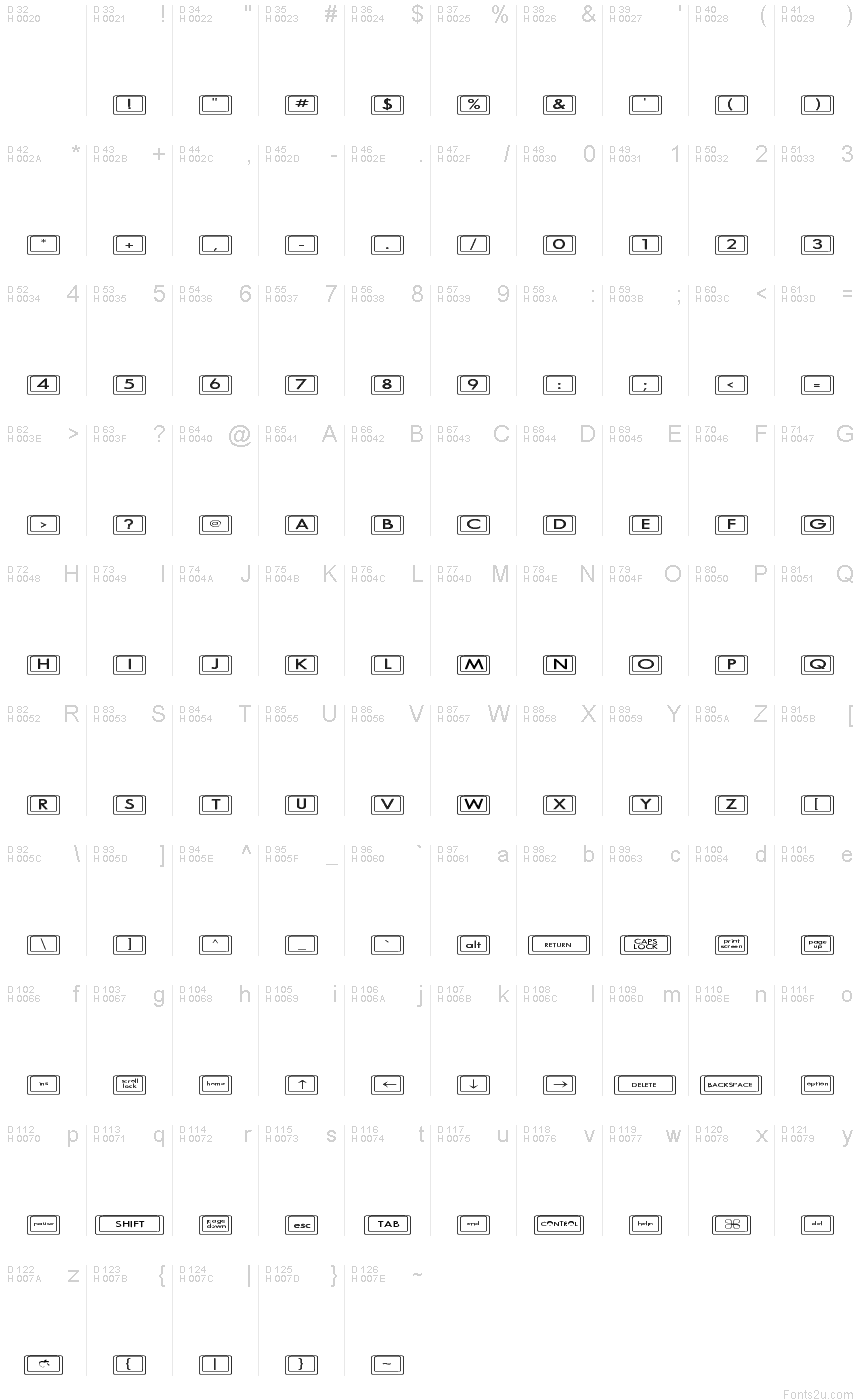
Keyboard KeysEx Expanded
Keyboard KeysEx Expanded font by Converted By Alltype is a free decorative display typeface that turns every character into a chunky keyboard key. Each glyph sits inside a softly rounded rectangle with a double outline, like a row of plastic caps seen from above, giving text a tactile, clickable feel. The inner lettering is clean and compact, so even short words look like real hardware buttons.
Using Keyboard KeysEx Expanded, you can instantly label keyboard shortcuts, software manuals, UI mockups, game HUDs, tutorial graphics, and tech posters without drawing custom icons. This free font shines when set a bit larger so the key shapes read clearly; pair it with a neutral sans serif for body copy and let the “keys” call out actions, menus, and commands.